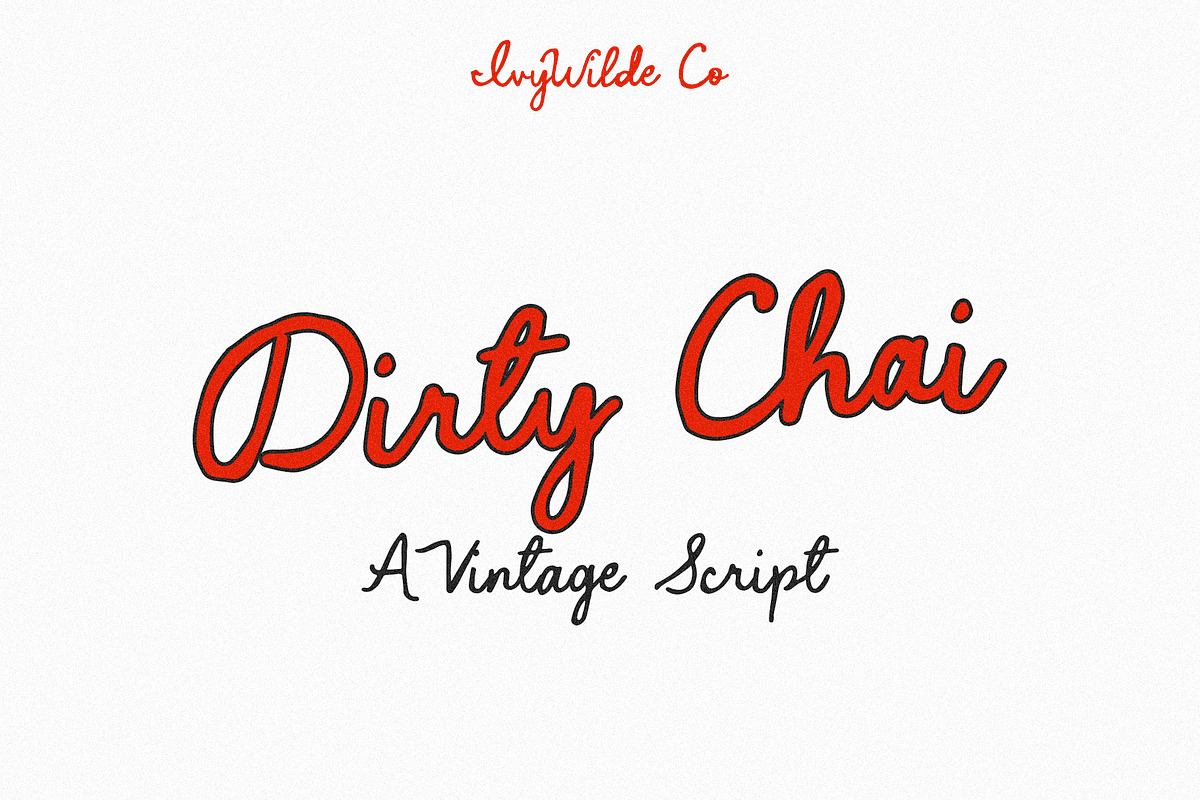
Dirty Chai – A Vintage Script Font
Introducing Dirty Chai, a vintage script font designed by Nirmana Visual. This font combines a contemporary approach with a handmade feel, featuring underlines and several ligatures to enhance its versatility.
Features:
Styles Included: Regular
Character Set: Uppercase and lowercase letters, numerals, basic punctuation, and stylistic alternates
Usage Recommendations:
Dirty Chai is ideal for:
Branding
Logos
Packaging designs
Website and social media imagery